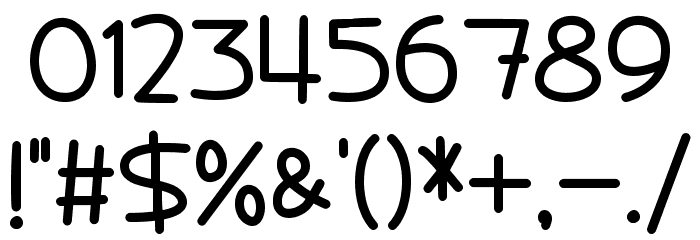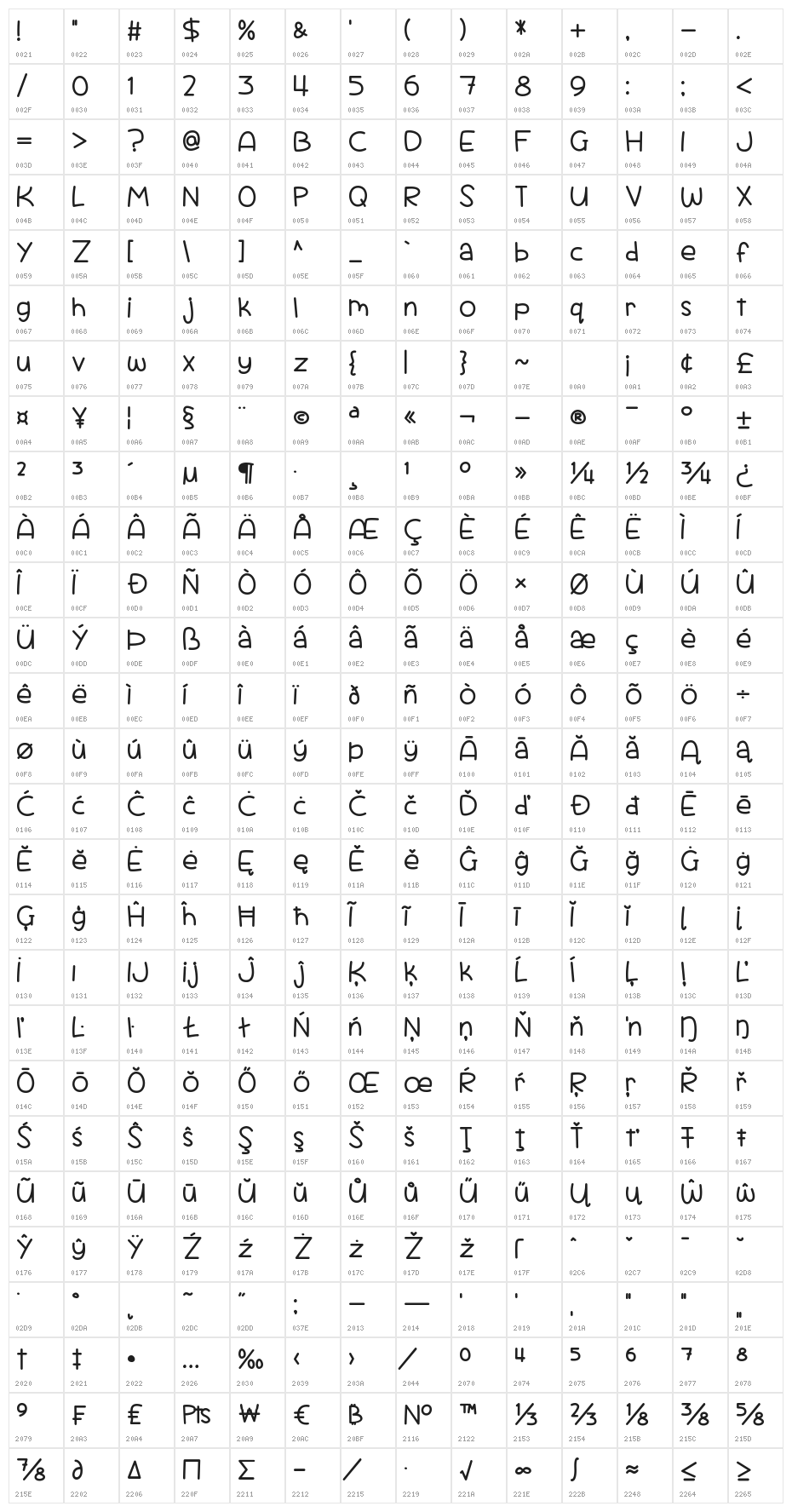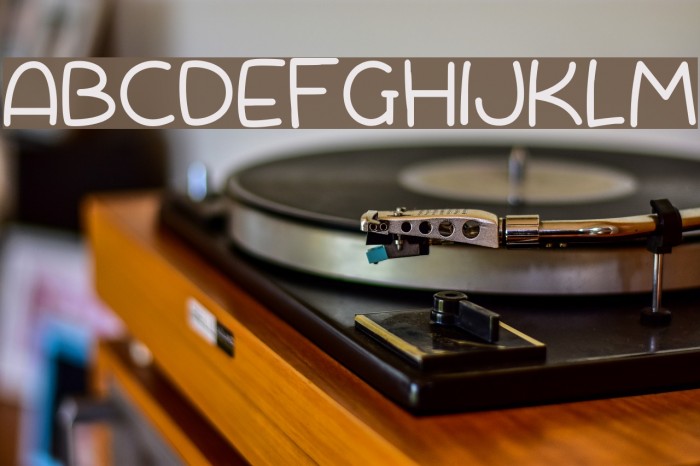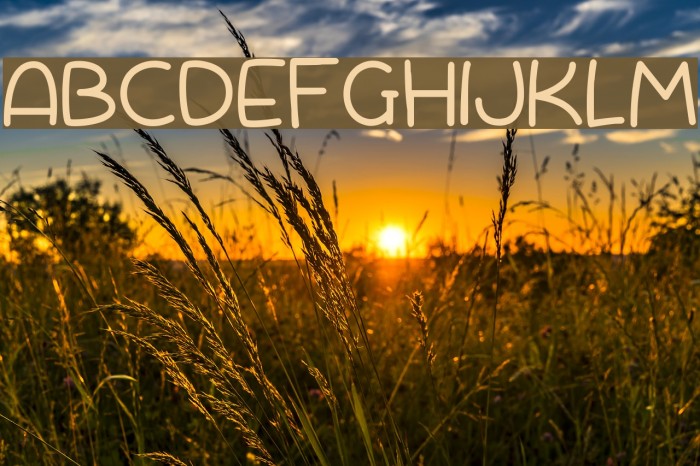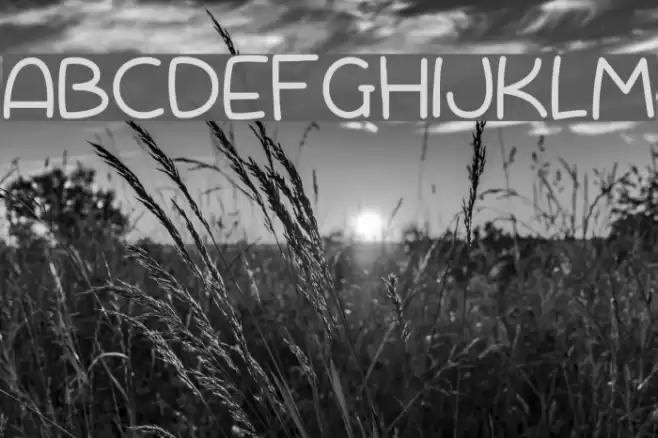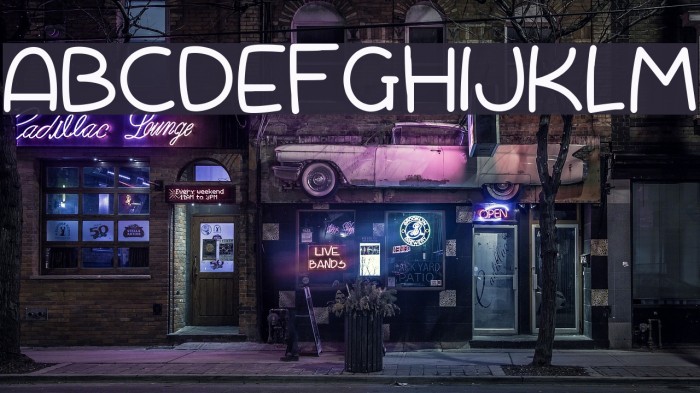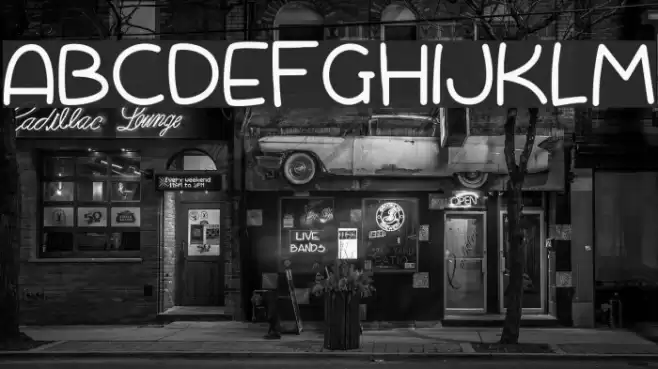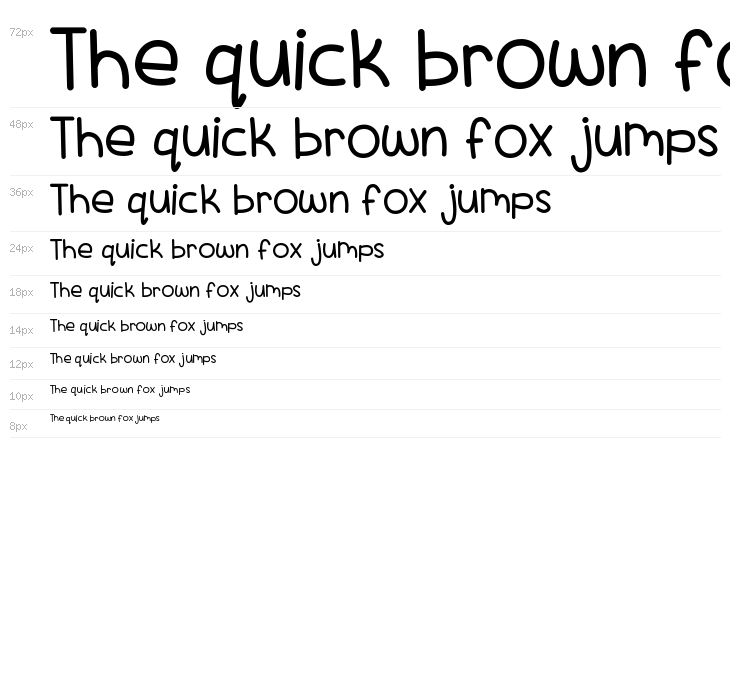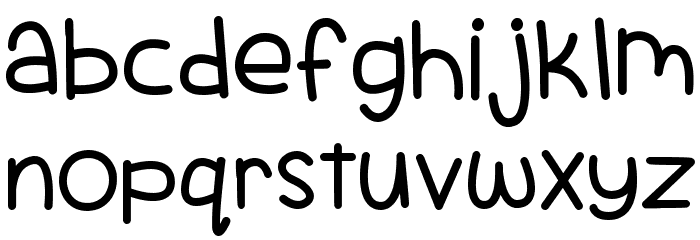
Scrambled Tofu Font
Scrambled Tofu Description
This playful and rounded font exudes a friendly and approachable vibe, characterized by its smooth curves and consistent stroke width. The letters are slightly irregular, giving it a hand-drawn, whimsical feel that adds a touch of personality and charm. The uppercase and lowercase letters maintain a uniform height, contributing to its cohesive appearance. The numerals and special characters are designed to match the overall style, ensuring versatility across various applications. Its simplicity and readability make it suitable for both digital and print media, appealing to audiences of all ages.
| Proposed Projects | Ideal for children's books, greeting cards, playful branding, and casual invitations. |